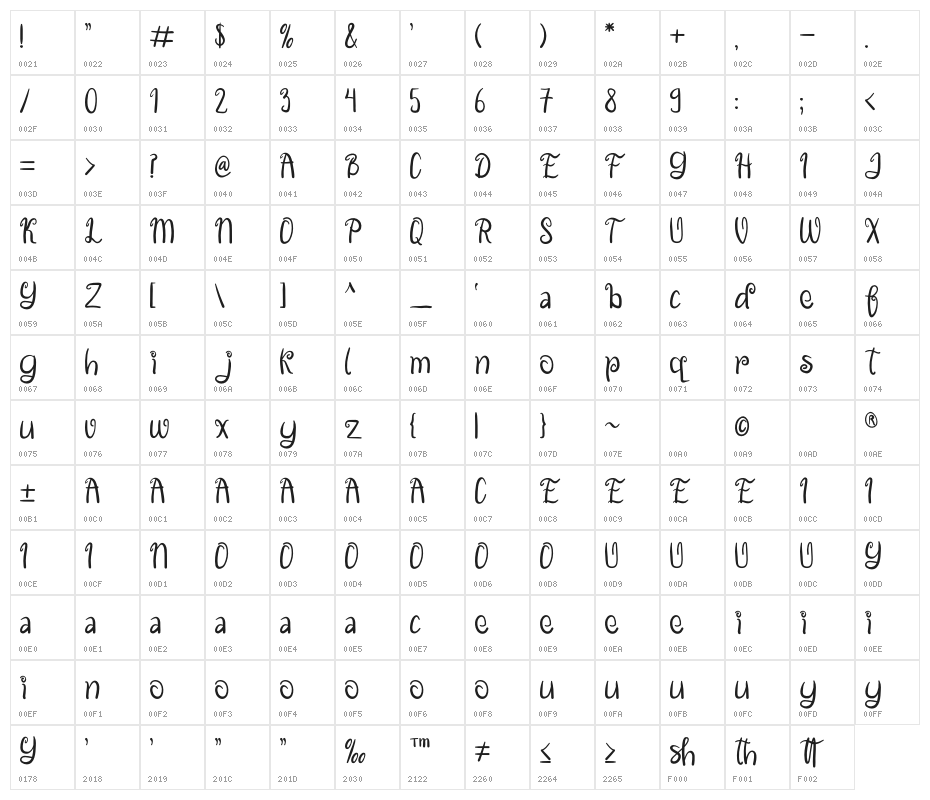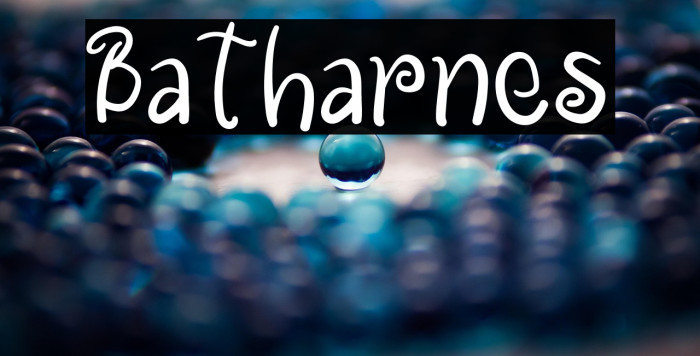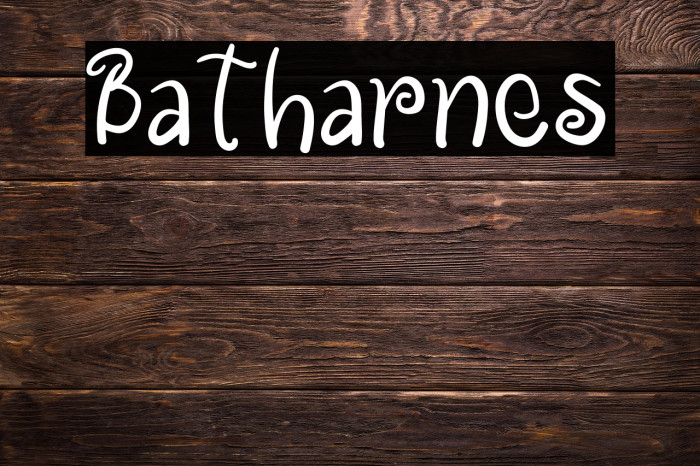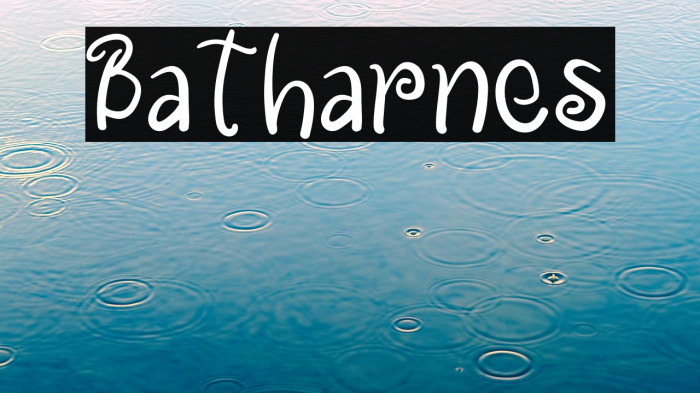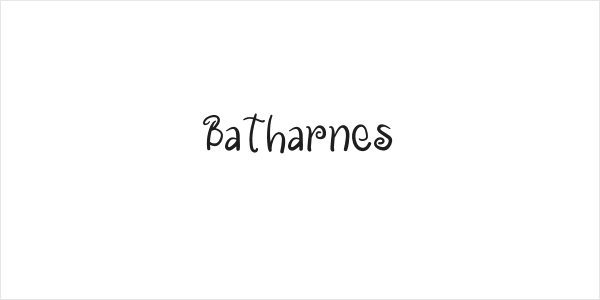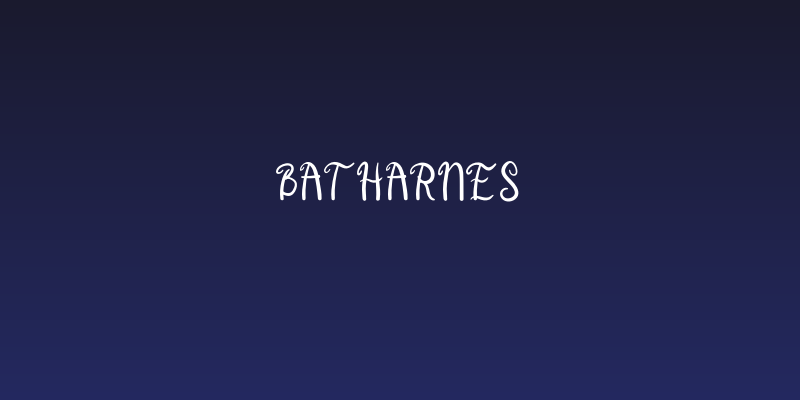
Batharnes Font
Batharnes Description
This font features a playful and whimsical design, characterized by its flowing, cursive-like strokes and rounded edges. The uppercase letters are tall and slightly narrow, with a consistent stroke width that adds to its legibility. The lowercase letters mirror this style, maintaining a cohesive look throughout the alphabet. Numbers and special characters are designed with the same playful curves, making them blend seamlessly with the letters. The overall appearance is casual yet elegant, making it suitable for a variety of creative projects.
| Use Case | Headlines, Logos, Creative Projects |
| Proposed Projects | Ideal for greeting cards, children's books, playful branding, and creative invitations. |